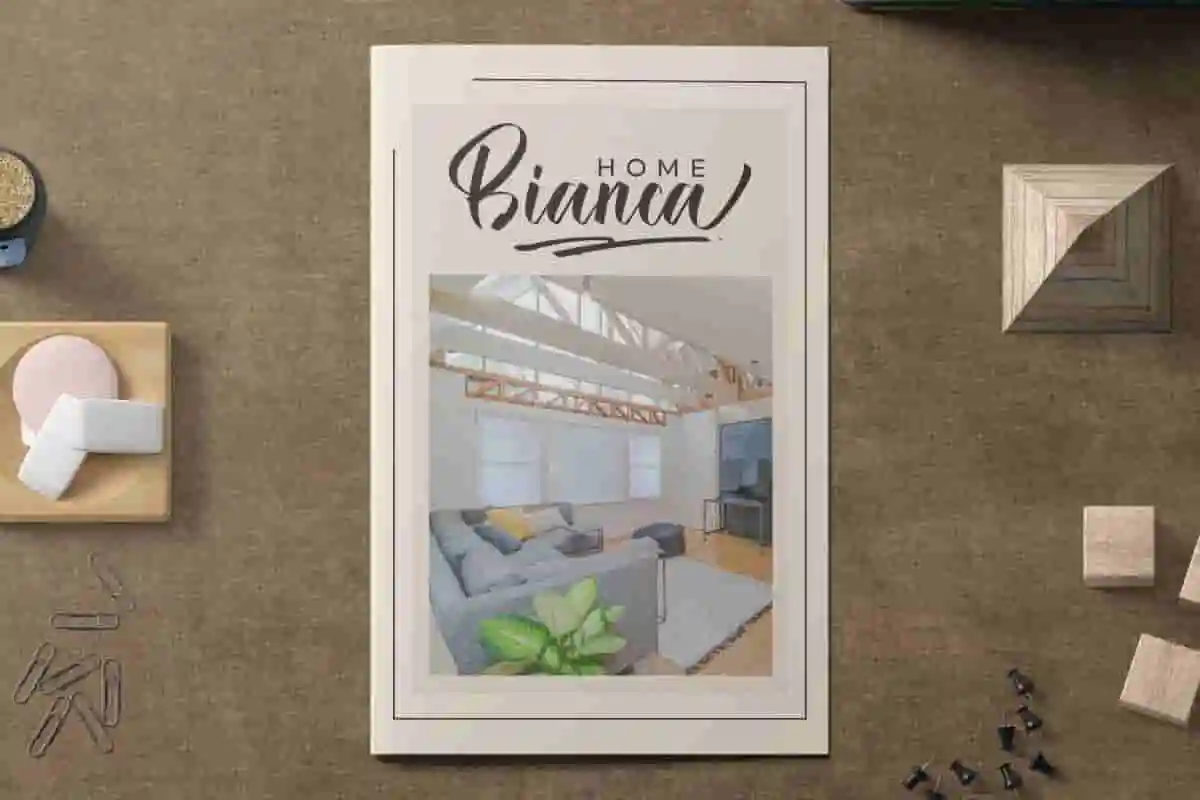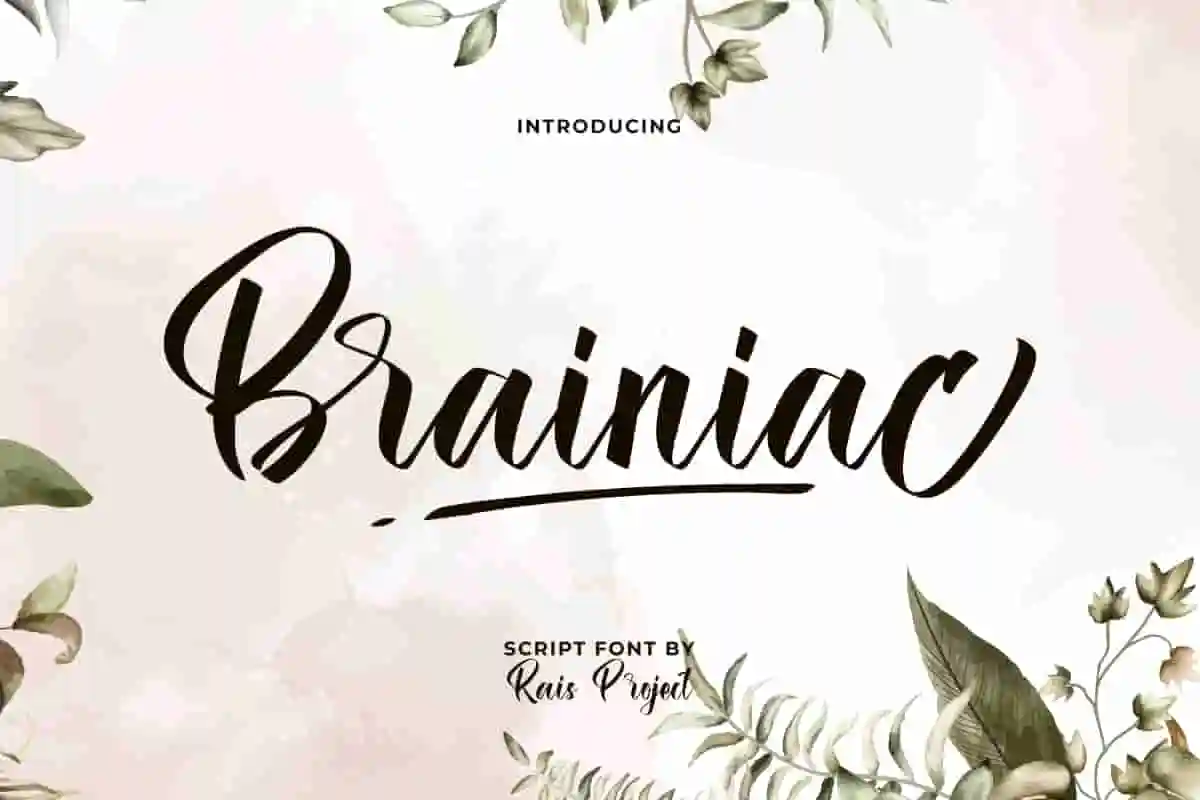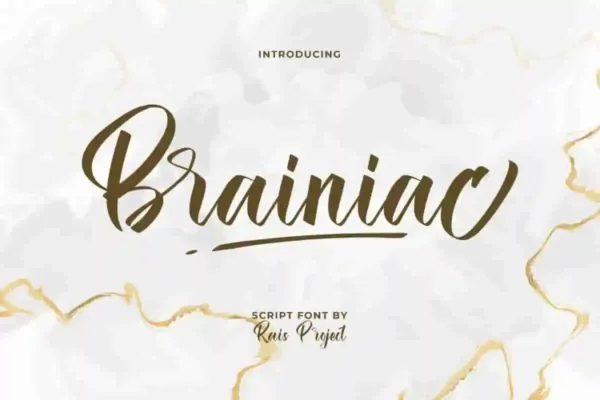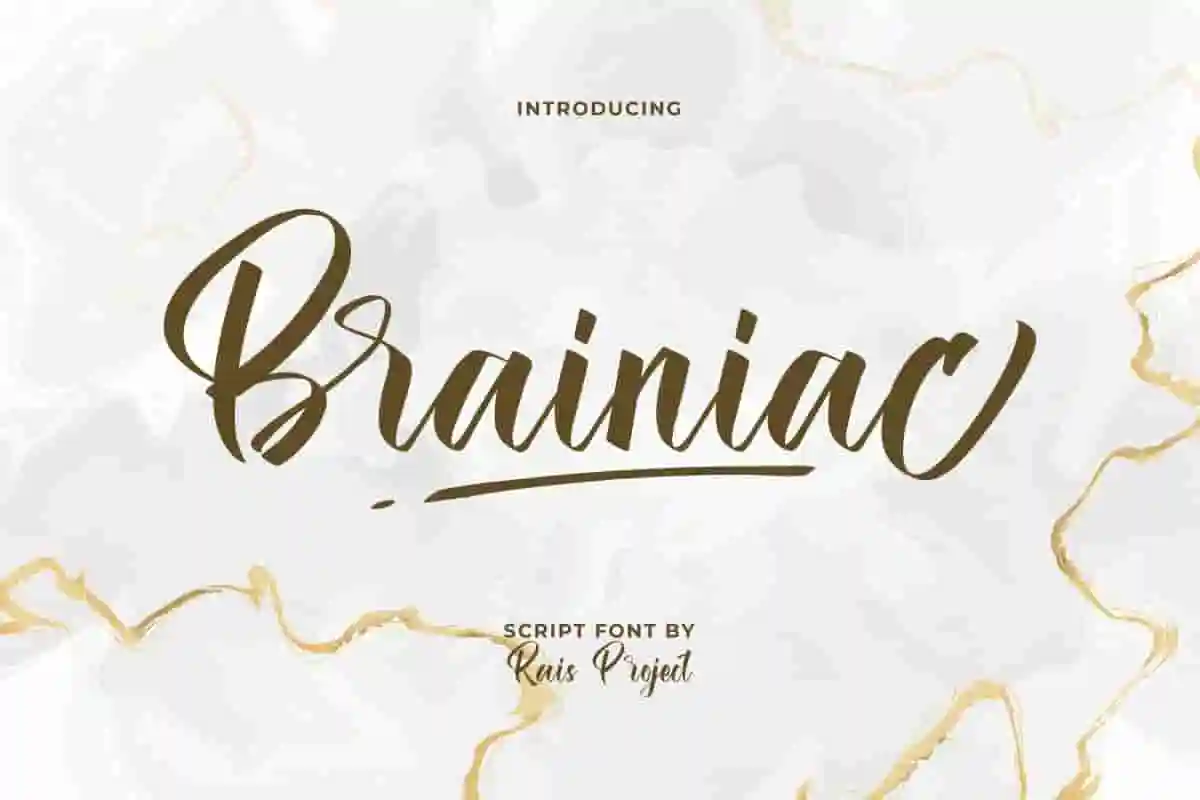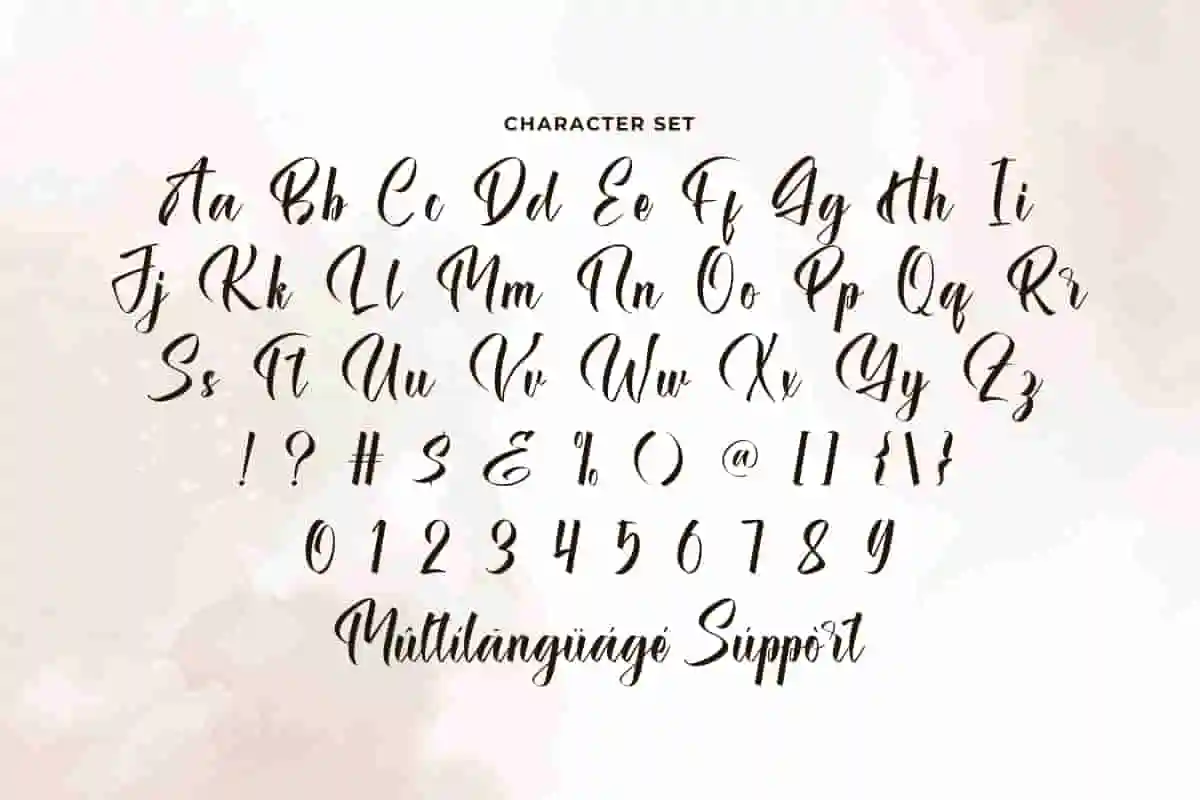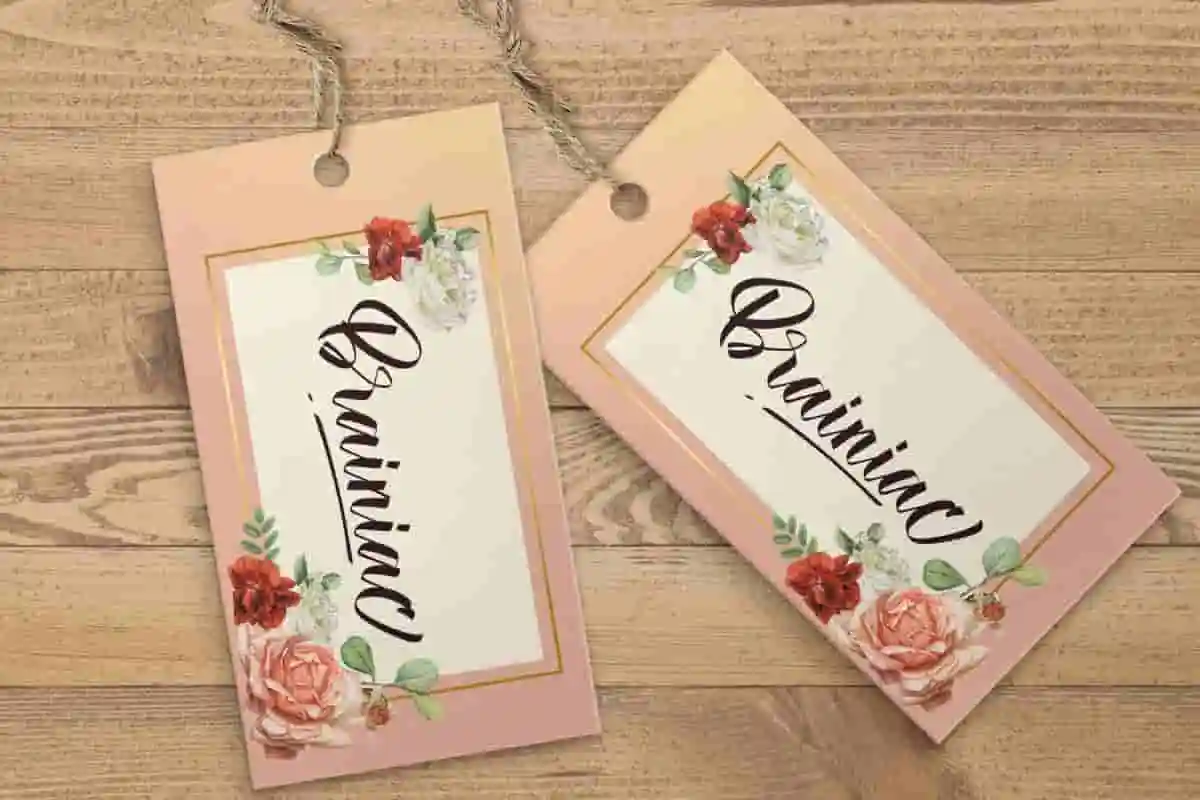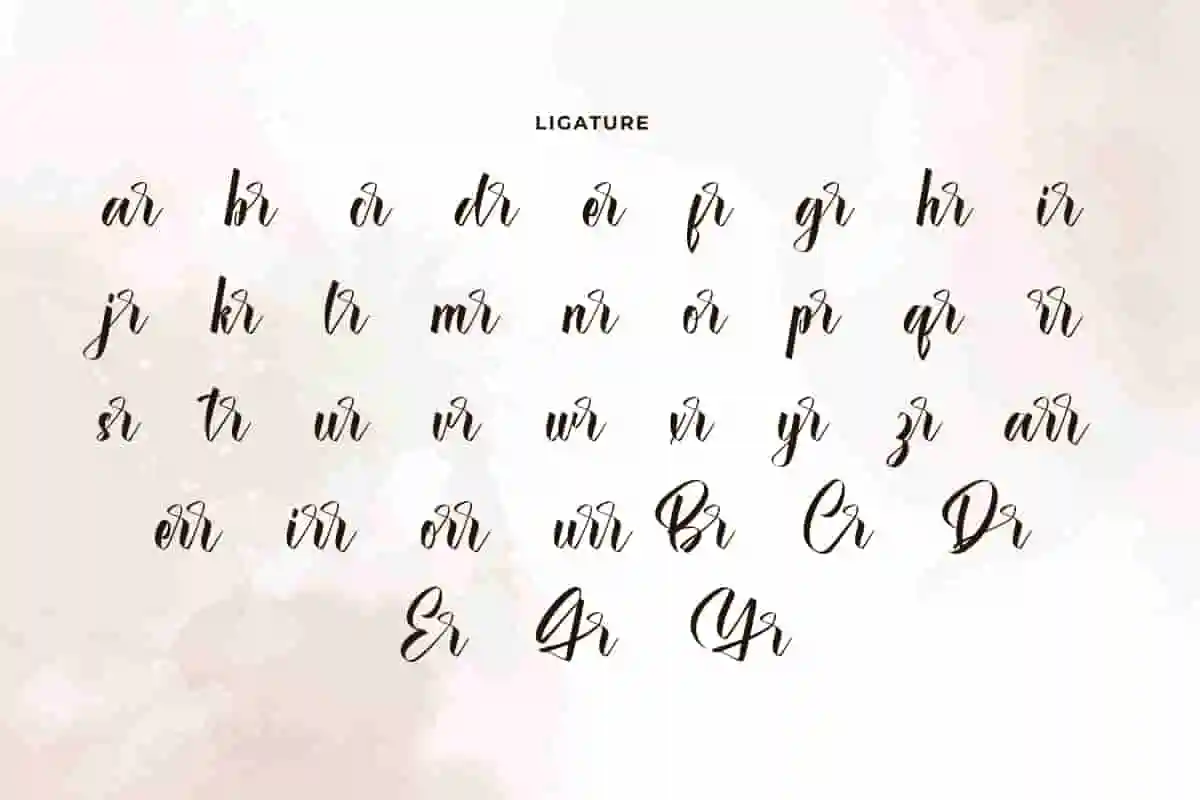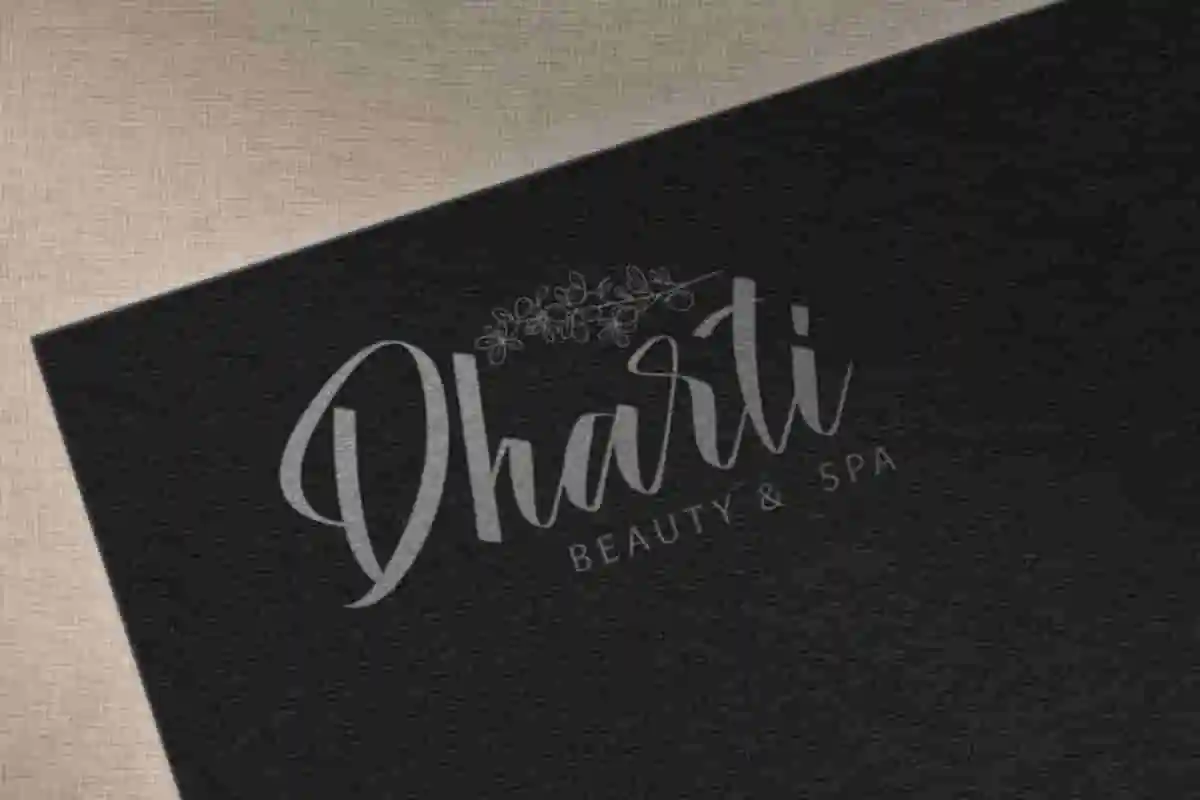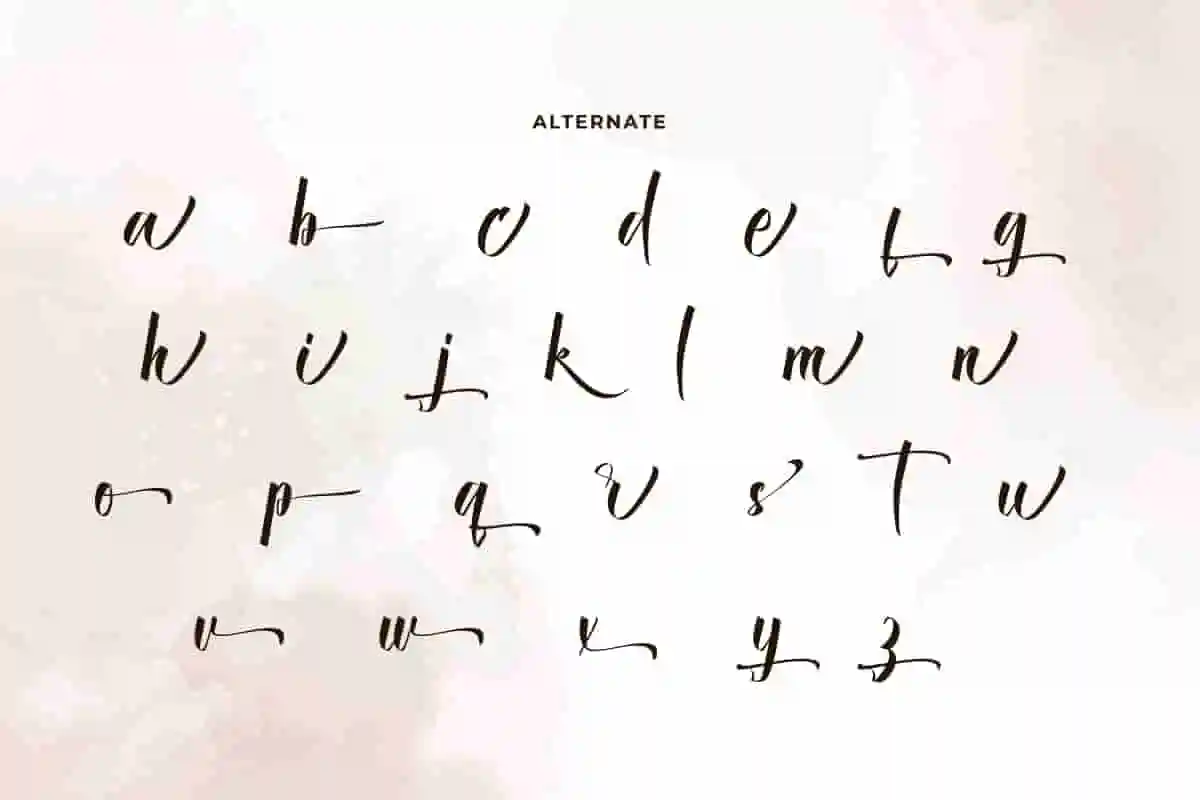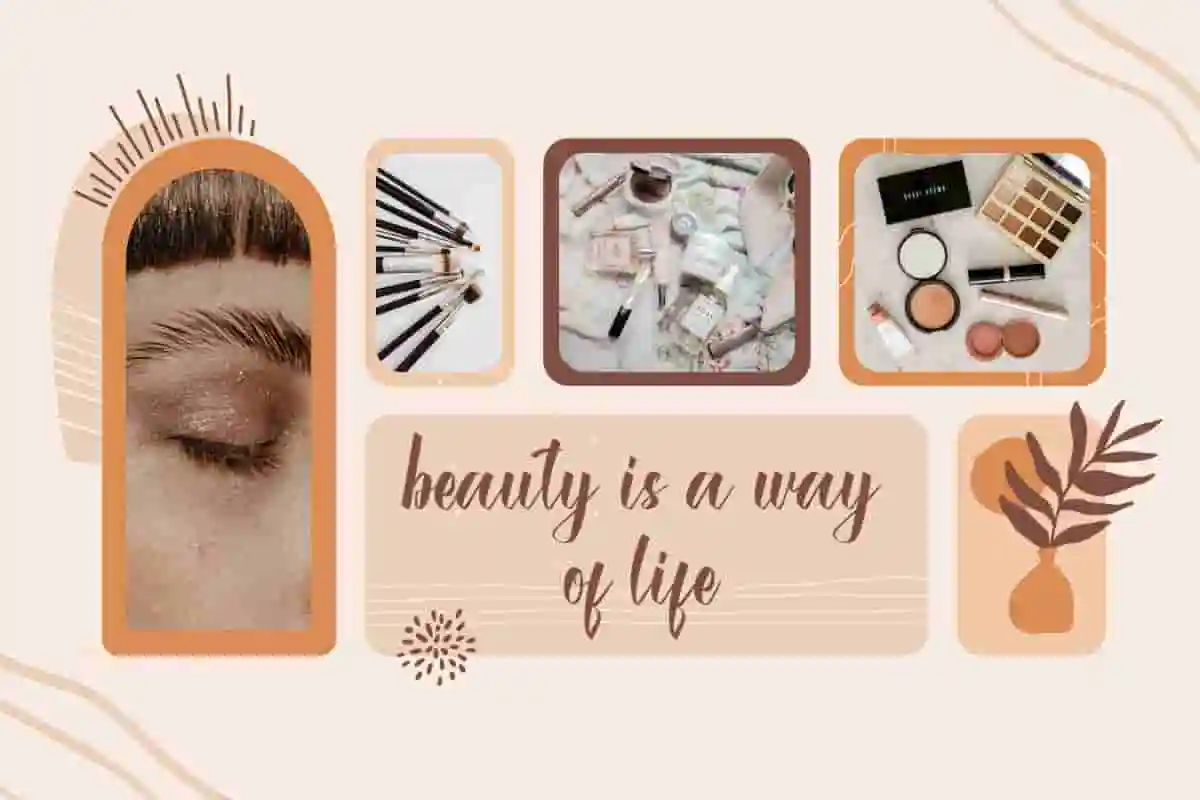
Brainiac Calligraphy Font
Brainiac Font is a stunning script font with calligraphy style designed by RaisProject. This font is well crafted to provide endless beauty that can be used for anything at any time. Use this font right away and see how beautiful it is!
Brainiac Font is a stunning script font, with calligraphy style. Fonts with a style like this are synonymous with feminine themes that make their beauty maximized. It will be good for many designs, such as brand image, business card, cover, custom design, invitation, label, poster, product packaging, quote, web, and more! You can see the demo font below, input any word you want so you can see what it looks like:
Brainiac Calligraphy Font includes a full set of Uppercase and Lowercase Letters, Numerals, large range of Punctuation, Ligature, Alternate, and Swoosh. This lovely and stylish font will be suitable for various industries, such as accessories and jewelry, advertisement, beauty product, event or wedding organizer, fashion, florist, photography, printing, publishing, etc. What you get: